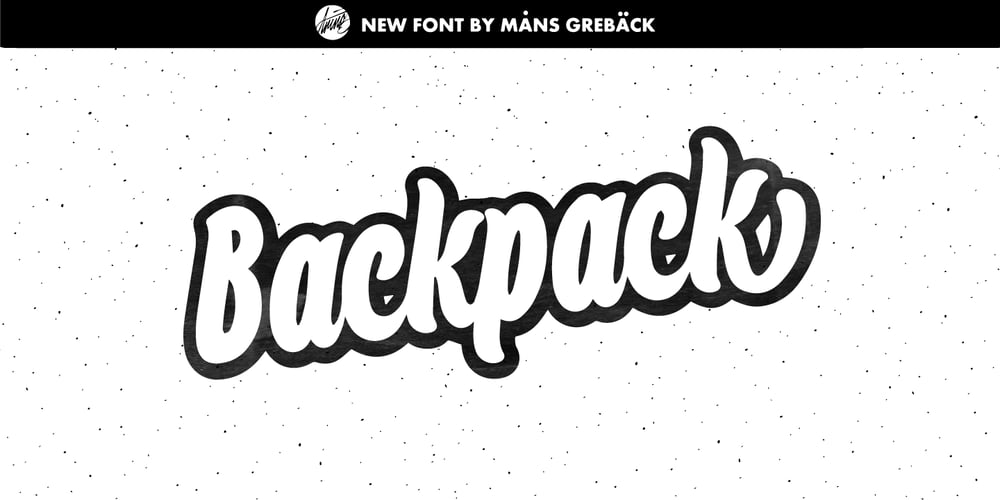
Backpack Font Family was designed by Måns Grebäck and published by Mans Greback. Backpack contains 1 styles and family package options. Don’t forget this backpack while on your next design journey. Friendly and fun, Backpack proves very useful if you forgot to pack yourself a soft and rounded font. So strap up and get designing!